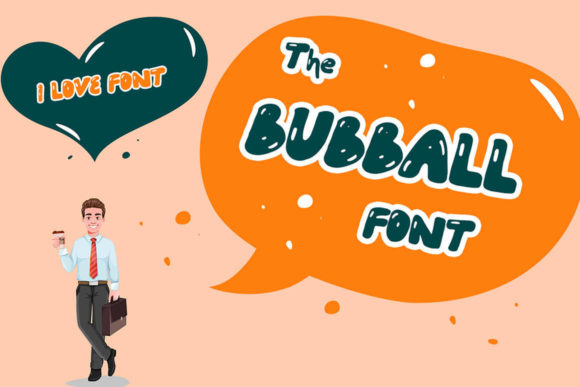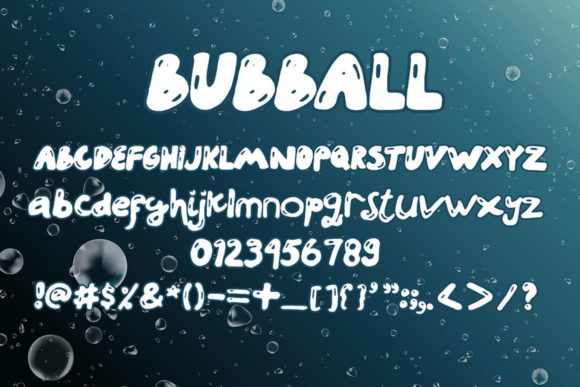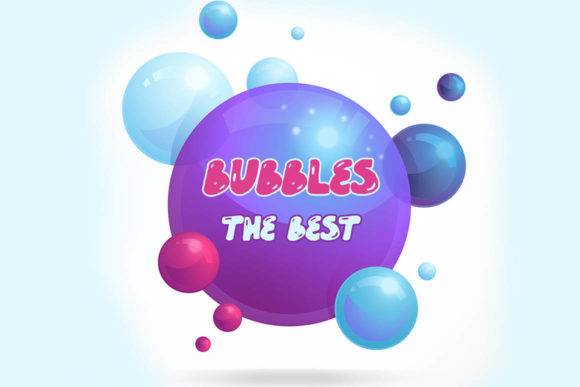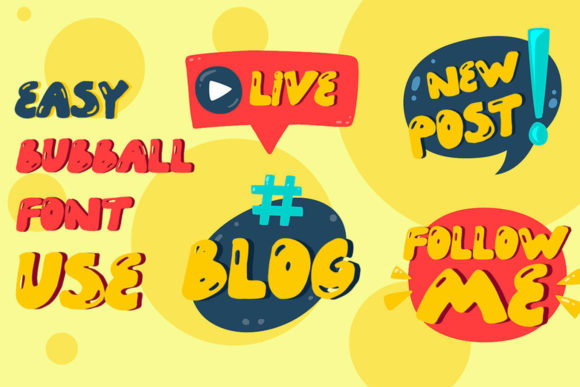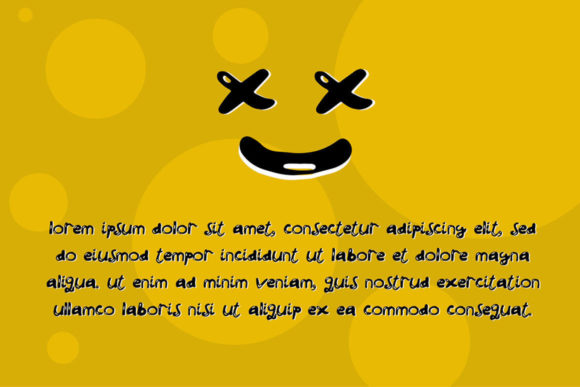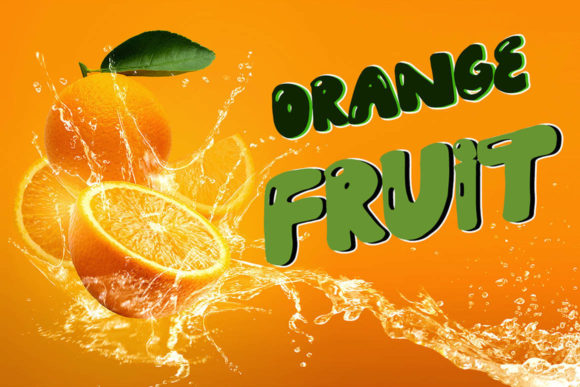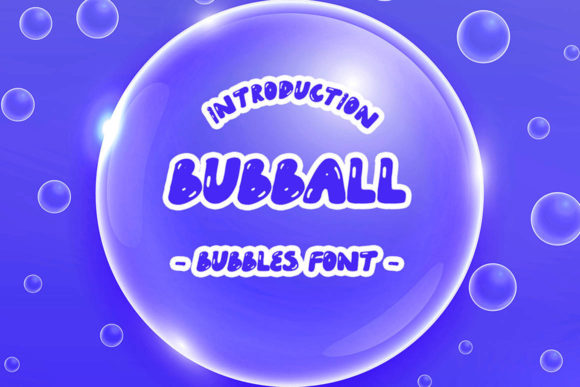
Bubball Font: The Cute and Bubbly Display Font to Elevate Your Creative Projects
Are you a designer, crafter, or DIY enthusiast looking for a font that can add a touch of playfulness and whimsy to your creative projects? Look no further than Bubball Font! This adorable display font is designed to make your designs come alive with its cute and bubbly personality.
What is Bubball Font?
Bubball Font is a unique and eye-catching display font that features rounded, bubbly letters with a playful and carefree vibe. Its distinctive design makes it perfect for use in a variety of creative projects, from handmade crafts and DIY tutorials to digital designs and marketing materials.
Key Features of Bubball Font
- Cute and Bubbly Design: Bubball Font features rounded, bubbly letters that are sure to add a touch of playfulness to your designs.
- Display Font: This font is specifically designed for use as a display font, making it perfect for headlines, titles, and other attention-grabbing elements.
- Easy to Read: Despite its playful design, Bubball Font is easy to read, even at smaller sizes.
- Versatile: Bubball Font can be used in a wide range of creative projects, from digital designs to handmade crafts.
How to Use Bubball Font in Your Creative Projects
There are countless ways to use Bubball Font in your creative projects. Here are a few ideas to get you started:
- Handmade Crafts: Use Bubball Font to add a personal touch to your handmade crafts, such as knitted items, jewelry, and home decor.
- Digital Designs: Add Bubball Font to your digital designs, such as social media graphics, blog posts, and marketing materials.
- DIY Tutorials: Use Bubball Font to create eye-catching titles and headings for your DIY tutorials and instructions.
- Party Decorations: Use Bubball Font to create custom party decorations, such as banners, signs, and invitations.
Tips for Using Bubball Font Effectively
Here are a few tips to help you get the most out of Bubball Font:
- Use it as a Statement Font: Bubball Font is designed to be a statement font, so use it sparingly to add emphasis to your designs.
- Pair it with Other Fonts: Experiment with pairing Bubball Font with other fonts to create a unique and eye-catching combination.
- Experiment with Colors: Bubball Font looks great in a variety of colors, so don’t be afraid to experiment and find the perfect hue for your design.